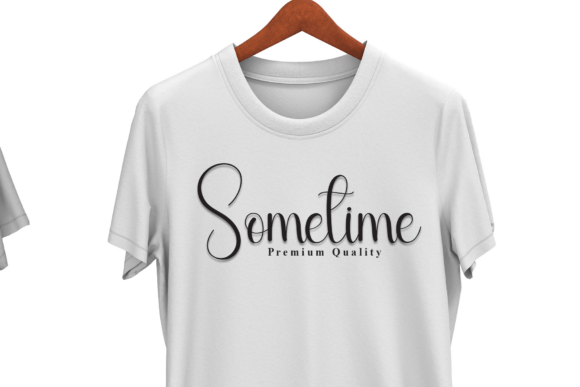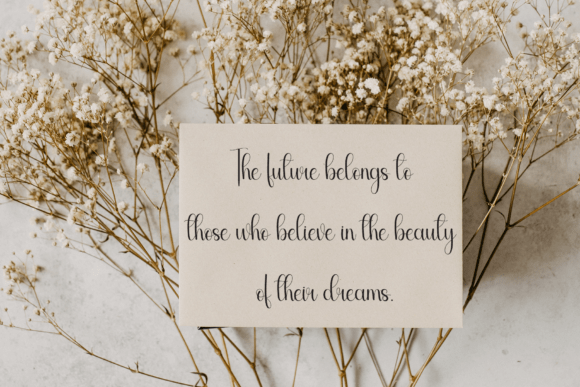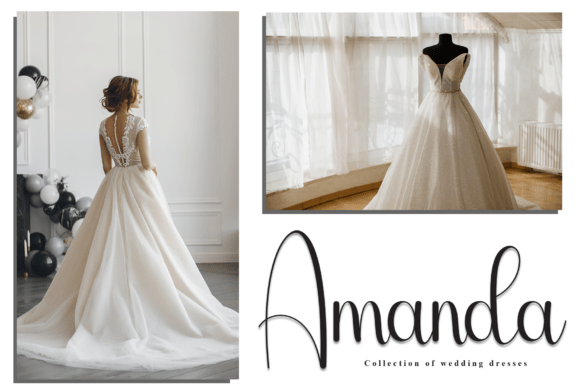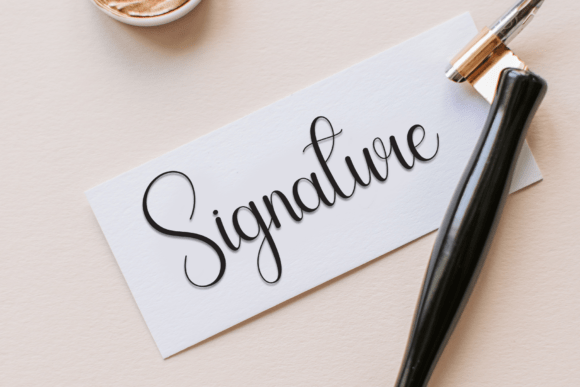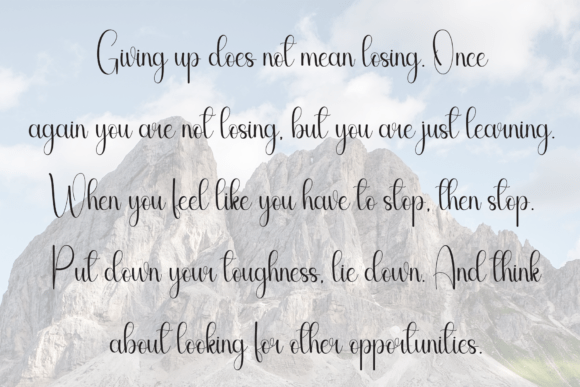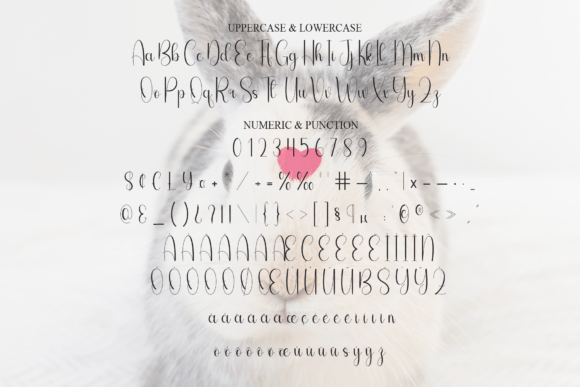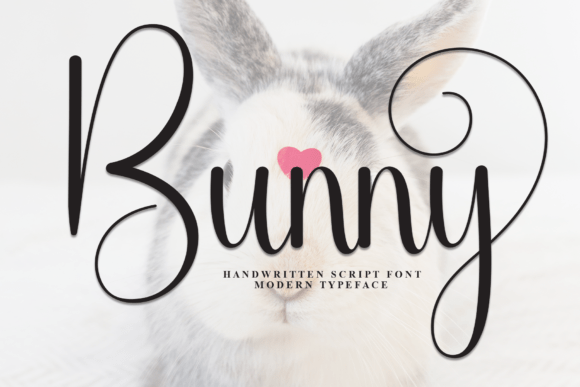
Bunny Font: Elevate Your Designs with Elegance and Charm
In the world of typography, fonts play a crucial role in conveying the tone and personality of a design. For those seeking a stylish and sophisticated touch, Bunny Font is an excellent choice. This beautiful handwritten script font is designed to exude elegance and charm, making it perfect for various design applications, including branding, invitations, and stationery.
The Characteristics of Bunny Font
Bunny Font boasts fluid, graceful strokes that dance across the page, creating a sense of movement and fluidity. Its smooth curves and natural flow evoke a timeless, refined look that is sure to captivate audiences. The font’s elegant appearance is characterized by:
- Fluid strokes: Bunny Font’s strokes are carefully crafted to create a sense of continuity and flow, making it perfect for designs that require a touch of sophistication.
- Smooth curves: The font’s curves are meticulously designed to create a natural, effortless look that adds a personal touch to any design.
- Elegant charm: Bunny Font’s unique blend of elegance and charm makes it an excellent choice for designs that require a touch of refinement.
Bunny Font is an excellent choice for designers and crafters seeking to elevate their designs with a touch of sophistication. Whether you’re working on a branding project, creating invitations, or designing stationery, this font is sure to impress. Here are some ways you can use Bunny Font to enhance your designs:
- Branding: Use Bunny Font to create a cohesive brand identity that exudes elegance and sophistication.
- Invitations: Add a personal touch to your invitations with Bunny Font’s beautiful, flowing script.
- Stationery: Elevate your stationery designs with Bunny Font’s refined, elegant appearance.
Why Choose Bunny Font?
With so many fonts available, why choose Bunny Font? Here are some compelling reasons to consider:
- Unique style: Bunny Font’s distinctive style sets it apart from other fonts, making it an excellent choice for designers seeking to create a lasting impression.
- Versatility: This font is versatile and can be used for a wide range of design applications, from branding to stationery.
- Ease of use: Bunny Font is easy to use and can be easily integrated into your design workflow.
Tips for Using Bunny Font Effectively
To get the most out of Bunny Font, here are some tips to keep in mind:
- Pair with complementary fonts: Pair Bunny Font with complementary fonts to create a harmonious design.
- Use for headlines and titles: Use Bunny Font for headlines and titles to create a lasting impression.
- Experiment with colors and textures: Experiment with different colors and textures to add depth and interest to your design.
In conclusion, Bunny Font is a stylish handwritten script font that exudes elegance and charm. Its fluid, graceful strokes and smooth curves create a timeless, refined look that is perfect for designers and crafters seeking to elevate their designs. With its versatility, ease of use, and unique style, Bunny Font is an excellent choice for a wide range of design applications. Whether you’re working on branding, invitations, or stationery, Bunny Font is sure to add a personal and sophisticated touch to your designs.